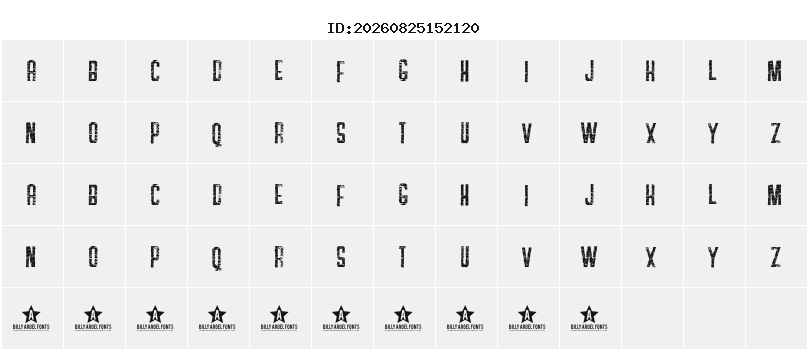
SOAP STORE Preview
• Font Name: SOAP STORE
• Font ID: BILLYARGEL: SOAP STORE: 2010
• Full Font Name: SOAPSTORE
• PostScript Name: SOAPSTORE
• Character Count: 65
• Designer: Billy Argel
• Manufacturer: BILLY ARGEL
About SOAP STORE.otf
SOAP STORE.otf is a modern, elegant sans-serif font designed for ultimate readability and visual harmony. Perfect for branding, headlines, web design, and print materials.